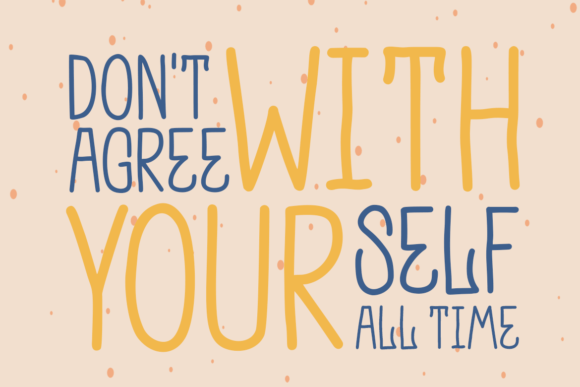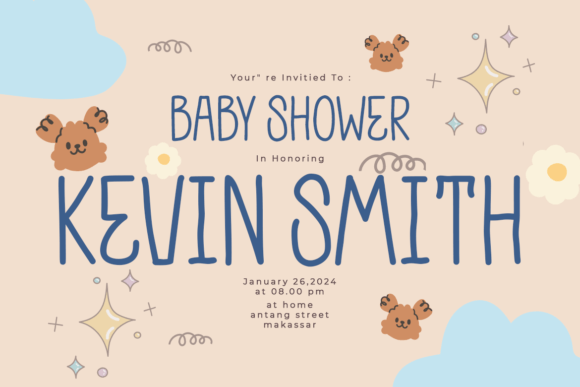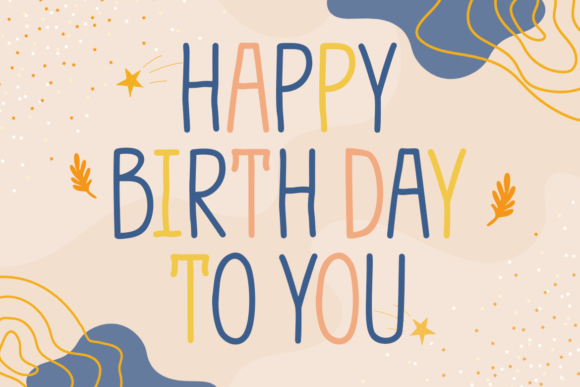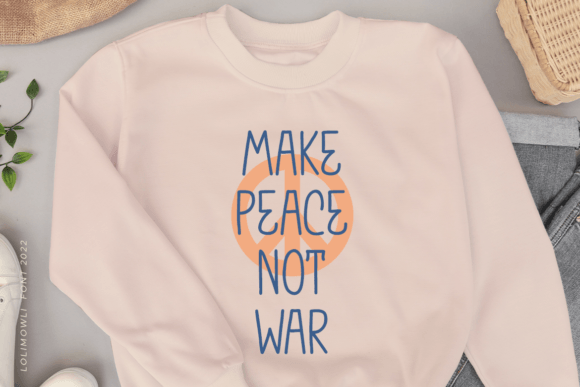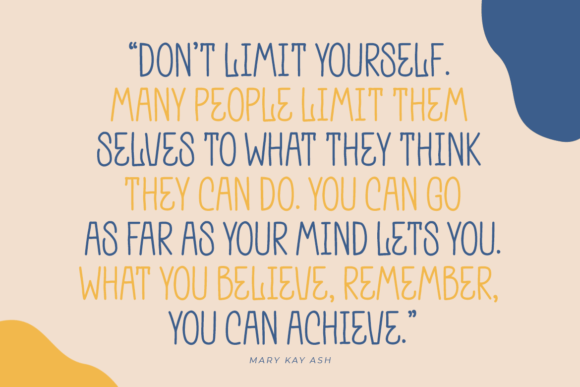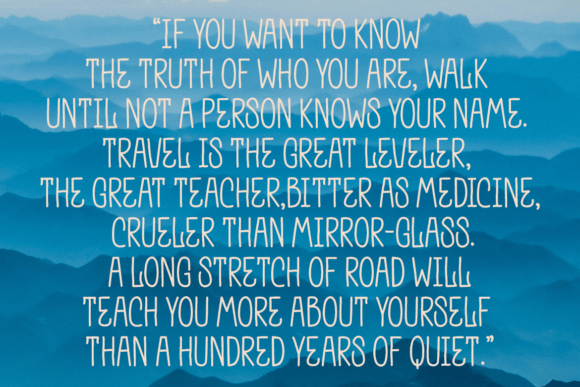
Introduction to Lolimowli Font
Lolimowli is a versatile, cute, and playful handwritten font, perfect for a wide spectrum of applications such as greeting cards, headlines, and many more.
Add it to any of your creative projects, and it will give them a clean and fun feel .
Key Features of Lolimowli Font
Why Choose Lolimowli Font?